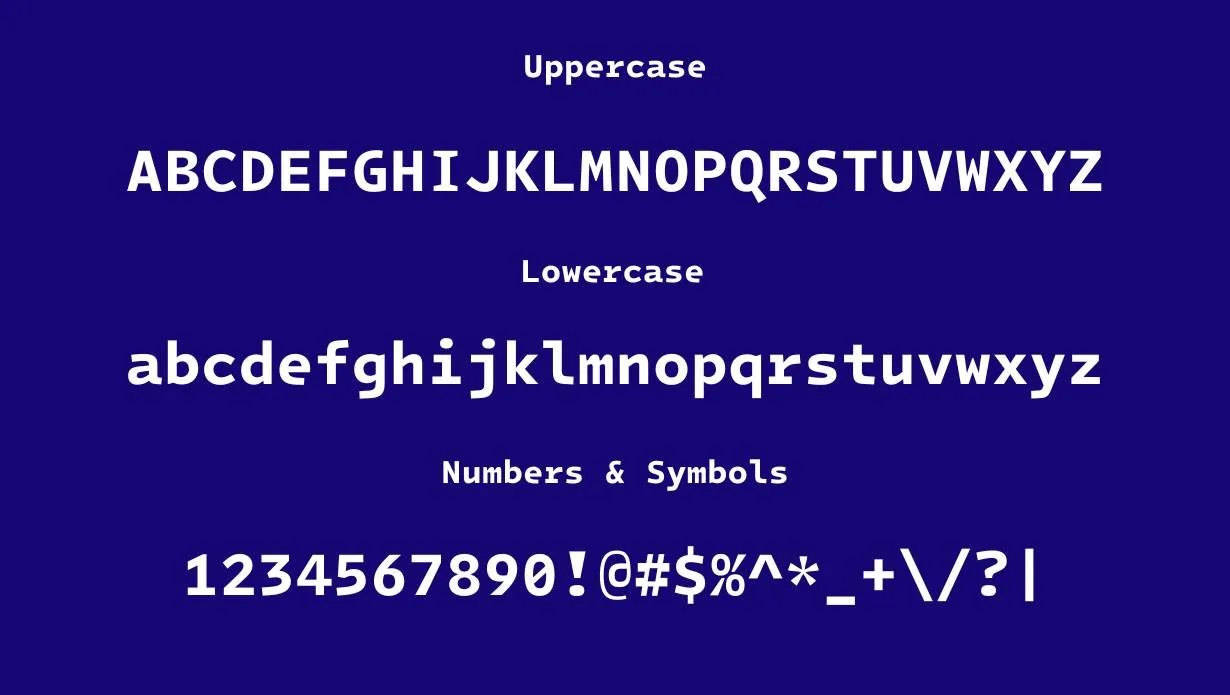
Intel Font is a sleek and modern typeface that communicates professionalism and clarity effortlessly. With its straightforward design, this font is perfect for delivering information clearly and concisely.
Whether utilized in presentations, reports, or websites, Intel Font ensures that your message is conveyed with a sense of precision and reliability, making it an excellent choice for projects that demand a modern and polished appearance.
| Name | Intel Font |
| Designer | Sebastian Lester |